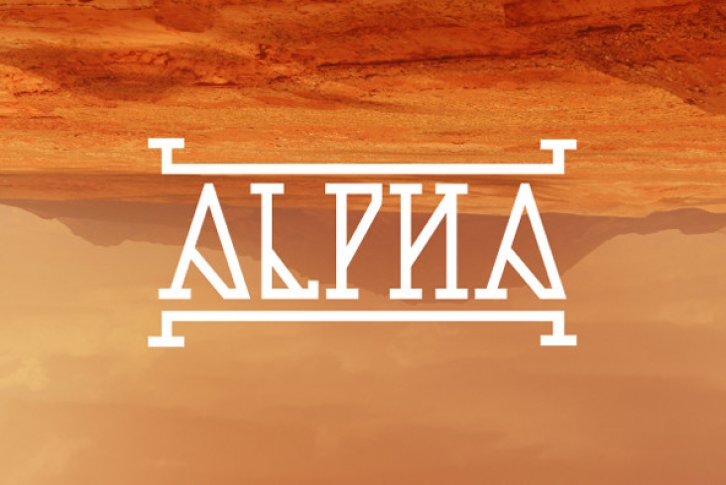
This typeface is as a follow up design to Diogo Pisoeiro's other release, Omega. Similar to Omega, Alpha extends into a different style of geometric angles and more. Besides having just the normal glyphs, it also contains numerous OpenType alternative glyphs, which you can mix and match for numerous design options. Alpha is a uppercase only design.